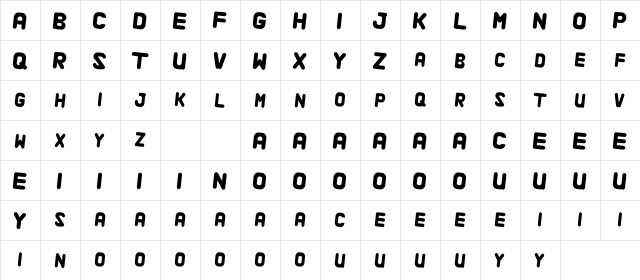
Alaqua Demo Italic
Design Context for Alaqua Demo Typeface
Alaqua Demo is a composed and adaptable typeface that performs quietly and consistently across a wide range of design contexts. The dynamic lean of this cut emphasises speed and emphasis in any layout.
Pro Tip: Use Alaqua Demo for emphasis, pull quotes, and subheadings where its slanted energy can add rhythm to the layout.